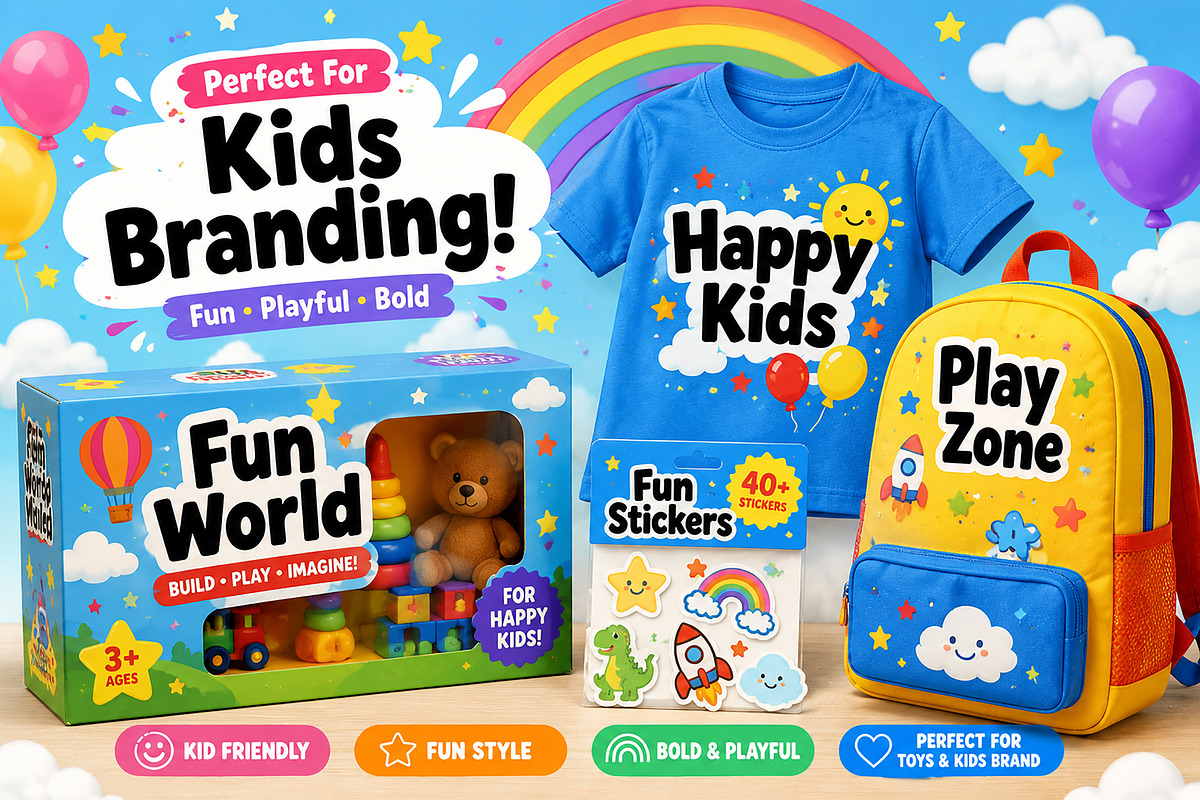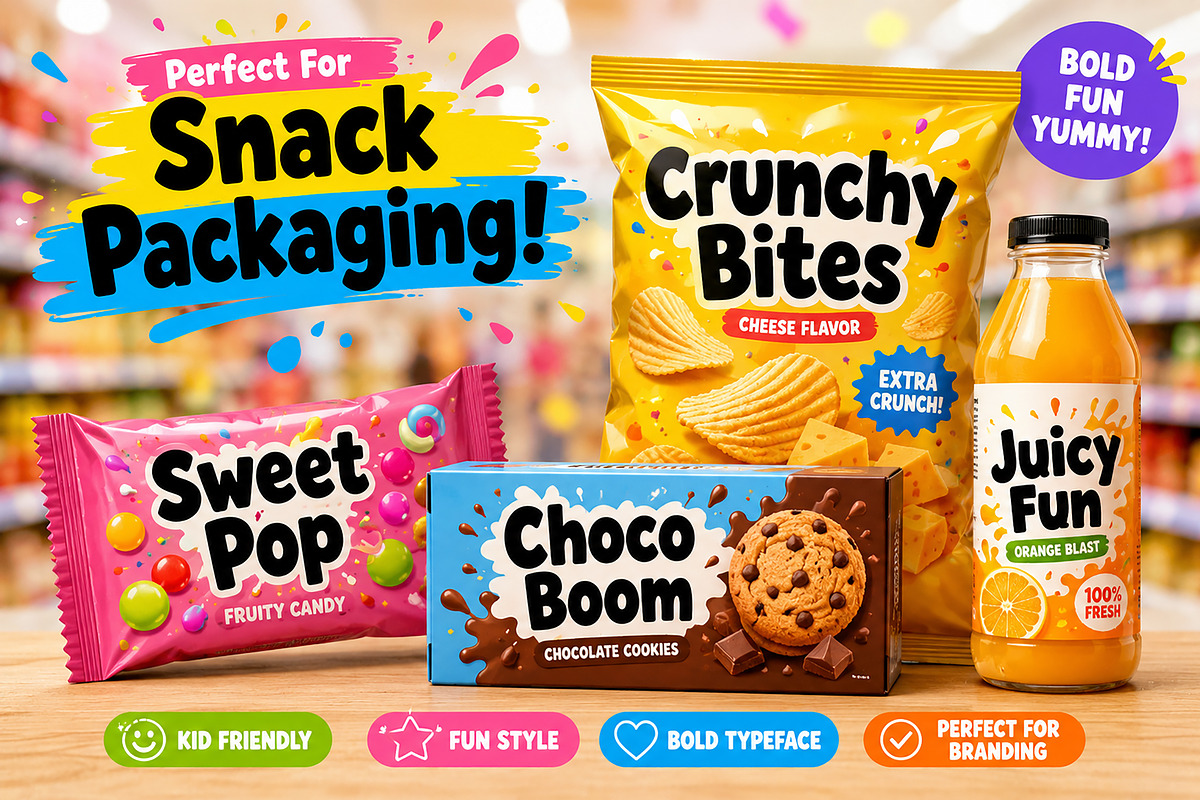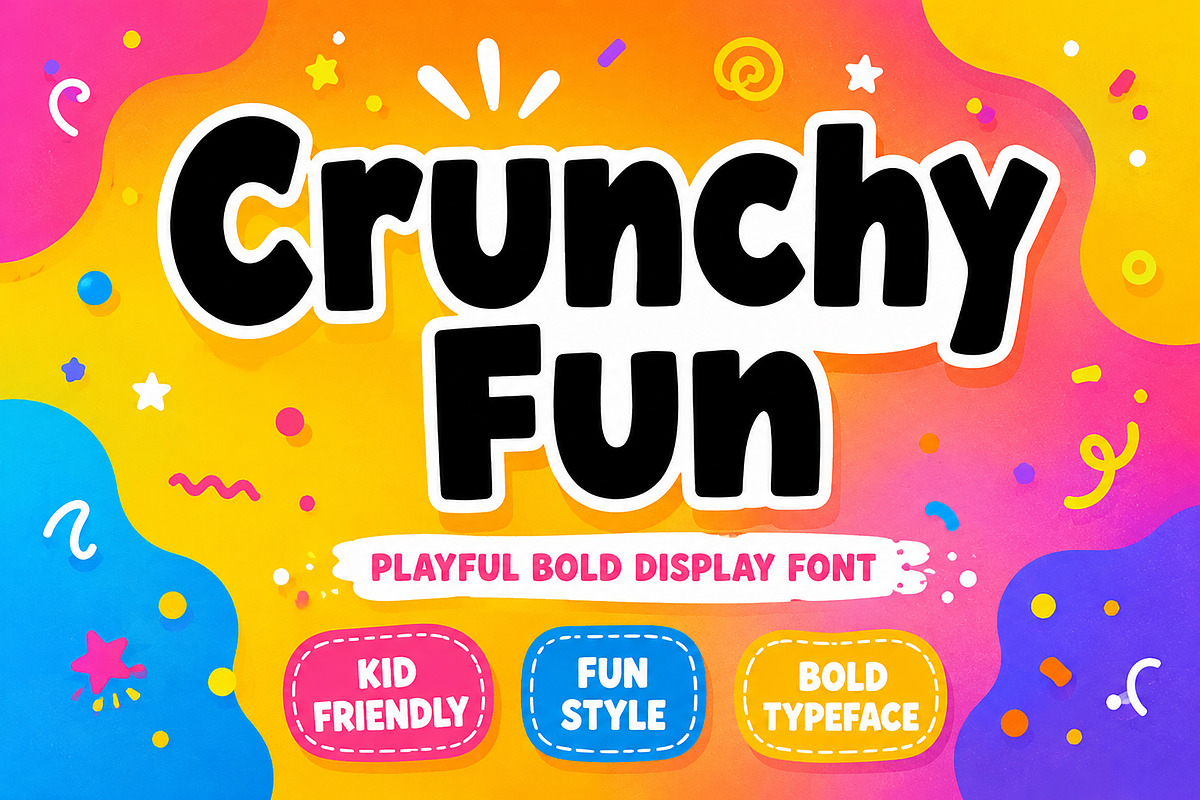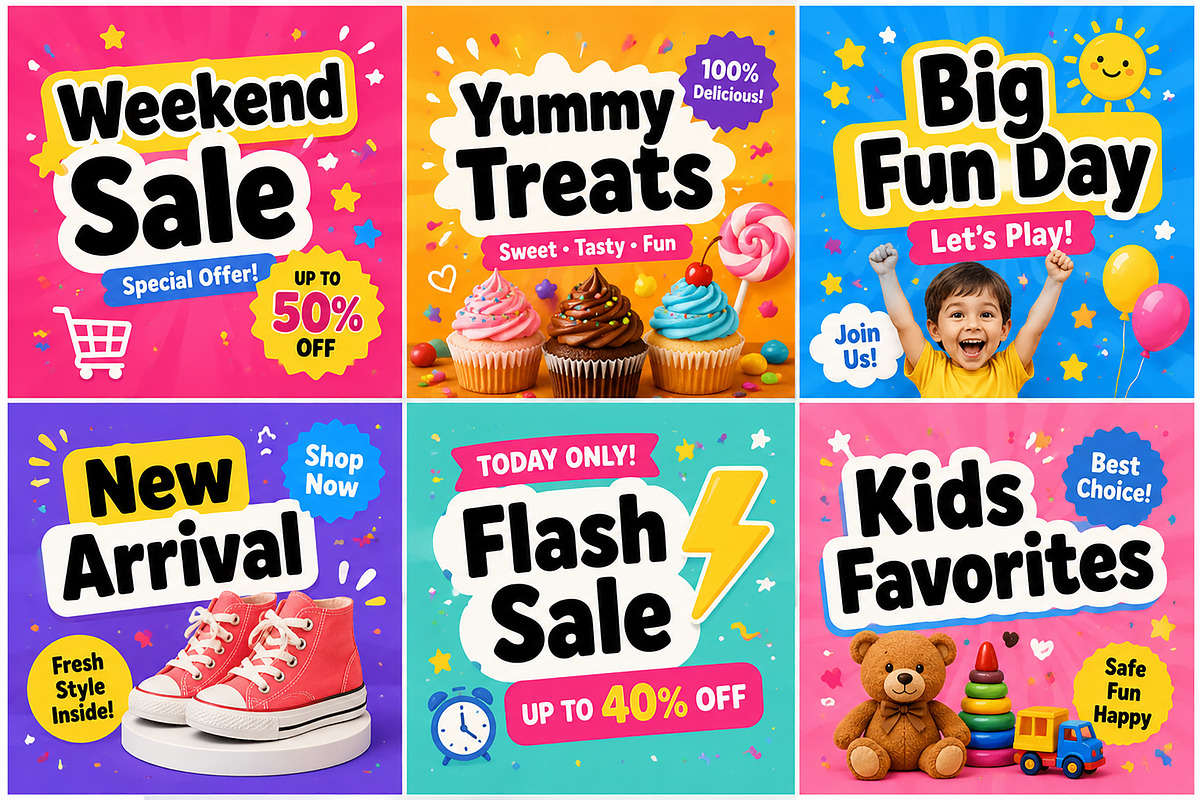
Crunchy Fun
Crunchy Fun is a playful bold display font packed with energy, joy, and creativity. Designed with chunky rounded letterforms and a cheerful cartoon-inspired style, this font is perfect for kids-themed projects, playful branding, snack packaging, party invitations, posters, toy packaging, social media graphics, and fun merchandise.
Its bold and friendly appearance makes it highly readable while keeping a lively and entertaining personality. Whether you're designing for children’s products, colorful branding, or eye-catching headlines, Crunchy Fun brings a sweet and happy vibe to every project.
Kids Branding
Toy Packaging
Snack Labels
Birthday Invitations
Posters & Flyers
School Projects
YouTube Thumbnails
Social Media Quotes
T-Shirts & Merch
Stickers
Add a playful and bold touch to your designs with Crunchy Fun — the perfect font for fun-loving creators!